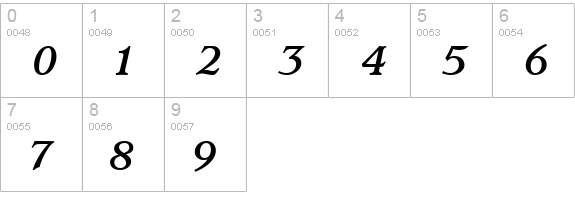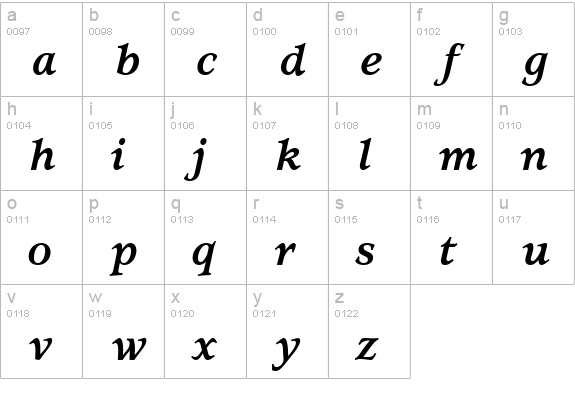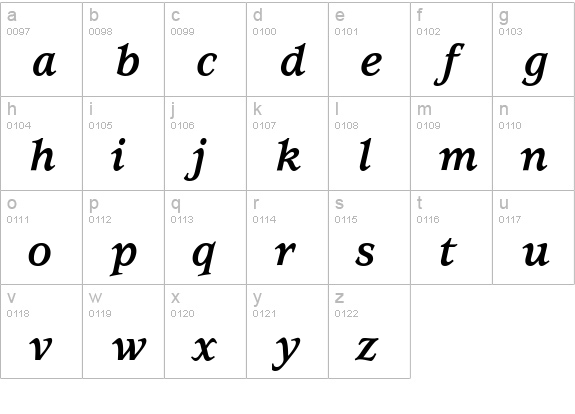
Usherwood Bold Italic is a strong, high-contrast, italic variant in the Usherwood typeface family \xE2\x80\x94 well suited to headlines, attention-grabbing titles, and strong calls-to-action.
Introducing Usherwood Bold Italic, a captivating and expressive font that effortlessly combines boldness with elegance. This font's unique blend of strength and slanting curves creates a visually dynamic experience, making it a perfect choice for designers seeking to make a bold statement. Usherwood Bold Italic commands attention with its confident and assertive presence, making it ideal for headlines, logos, and branding materials. Its sleek, italicized design adds a touch of sophistication and refinement to any project, lending a sense of professionalism and creativity. But what truly sets Usherwood Bold Italic apart is its accessibility. This remarkable font is freely available to download at FontsMarket.com, allowing designers of all backgrounds and budgets to access its undeniable charm. Whether you're a seasoned professional or an aspiring creative, Usherwood Bold Italic empowers you to bring your vision to life without breaking the bank. With its extensive character set and versatile nature, Usherwood Bold Italic offers endless possibilities for creating stunning designs. From eye-catching posters to impactful advertisements, this font effortlessly adapts to any context, delivering a visual experience that is both memorable and engaging. So, whether you're looking to make a lasting impression or simply want to add a touch of flair to your next project, Usherwood Bold Italic is the font to rely on. Download it for free at FontsMarket.com, and let your creativity soar with this bold and elegant typeface.